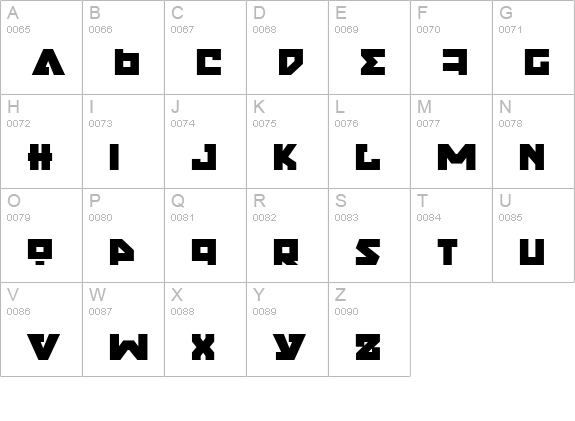
Nyet Semi-Bold is a strong, high-contrast variant in the Nyet typeface family \xE2\x80\x94 well suited to headlines, attention-grabbing titles, and strong calls-to-action.
Introducing Nyet Semi-Bold font, a contemporary and versatile typeface that exudes bold elegance and sophistication. With its striking semi-bold weight, Nyet Semi-Bold is perfect for creating eye-catching headlines, titles, and branding materials that demand attention. This font strikes the perfect balance between modernity and classic design, making it suitable for a wide range of projects. What sets Nyet Semi-Bold font apart is not only its timeless appeal but also the fact that it is available for free download at FontsMarket.com. This means that you can easily access this high-quality font without any cost, making it a valuable addition to your design toolkit. Whether you're working on print or digital projects, Nyet Semi-Bold font offers a level of professionalism and style that will elevate your designs to the next level. Don't miss out on the opportunity to enhance your typography with Nyet Semi-Bold font – download it for free today at FontsMarket.com and discover the endless creative possibilities it offers.